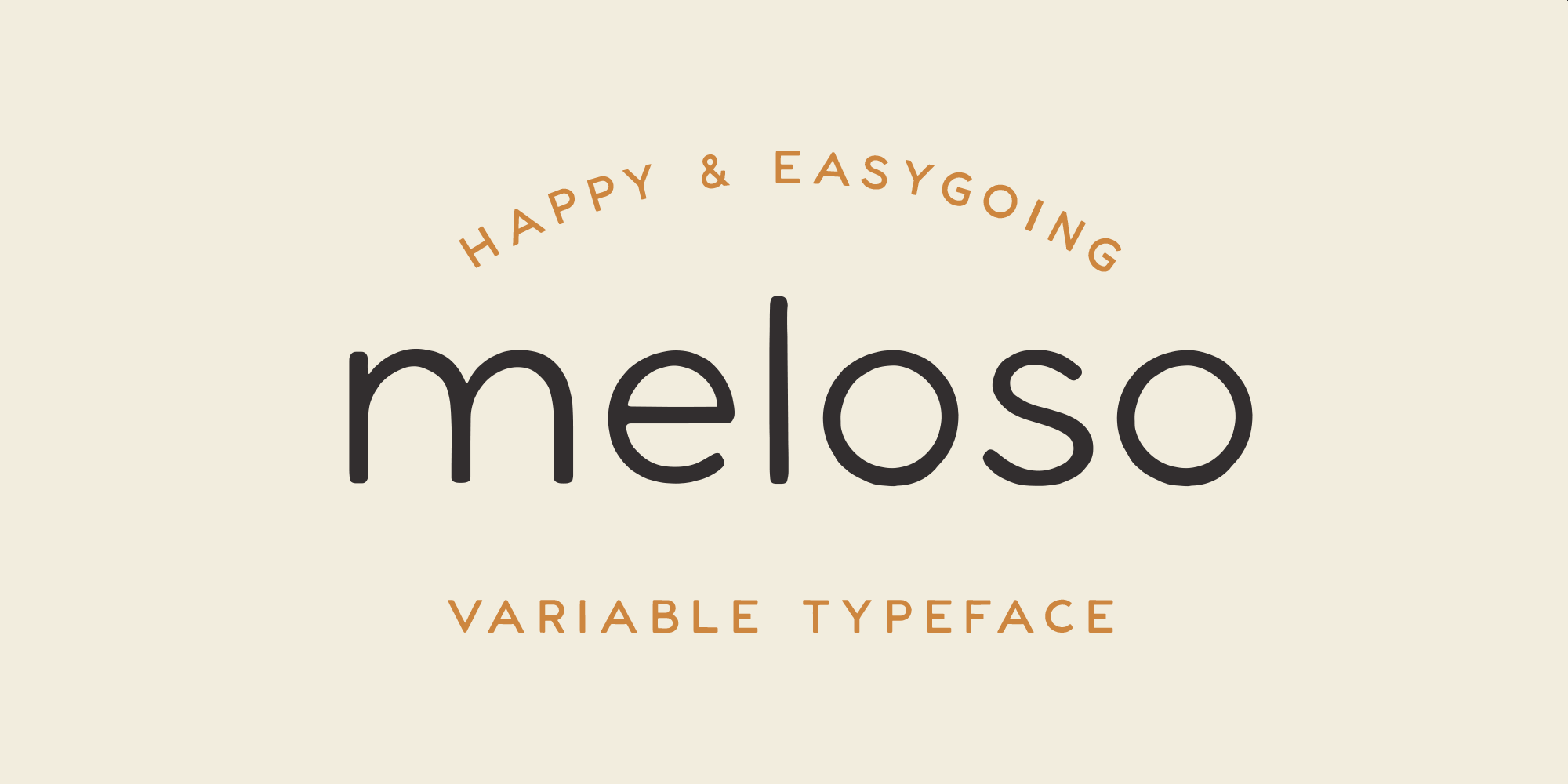
Meloso Font is perfect for honey product packaging, artisanal bakery branding, sweet dessert shop signage, natural food labels, organic honey farm materials, golden amber jewelry designs, warm café communications, cozy home décor projects, heartwarming greeting cards, and melodiously sweet marketing communications.
Meloso Font is exciting because it captures the liquid gold essence and honeyed sweetness of natural indulgence with its smoothly flowing letterforms that seem drizzled with golden honey and warmed by summer sunshine. Its deliciously warm character design reflects both the natural purity of artisanal sweetness and the comforting richness that makes simple pleasures unforgettable, making it perfect for brands celebrating authentic sweetness and natural luxury.
Meloso Font family includes thin, light, regular, medium, bold, and black weights, each with corresponding italic versions. The font family also features honey-inspired ornaments, golden ligatures, sweet decorative elements, and natural symbols that enhance its honeyed aesthetic and versatility.
This deliciously warm typeface represents the perfect fusion of natural sweetness and artisanal craftsmanship. Meloso Font Free Download allows designers to taste its golden appeal before making a commercial commitment. The font's ability to convey both natural purity and luxurious indulgence makes it ideal for brands in the artisanal food, natural products, and comfort lifestyle industries.
Whether you're developing honey producer identities, creating artisanal bakery materials, or designing comfort food communications, Meloso Font brings an unmistakable sense of golden warmth and natural sweetness to every project. Its honeyed character and artisanal heritage create powerful connections that resonate with audiences seeking authentic, natural indulgences and comforting experiences.
The font's versatility excels in food and lifestyle environments where natural authenticity and warm comfort are paramount. Its golden character makes it particularly effective for honey producers, artisanal food brands, comfort cafés, and natural lifestyle companies seeking to establish genuine connections with audiences appreciating authentic sweetness and natural luxury.
For designers working on projects requiring genuine natural sweetness and golden appeal, Meloso Font provides an exceptional solution. Its honeyed presence and comprehensive sweet-themed elements offer the tools needed for creating truly indulgent communications, while its golden warmth ensures your designs capture the natural luxury and comforting sweetness that defines authentic artisanal experiences and natural indulgence.